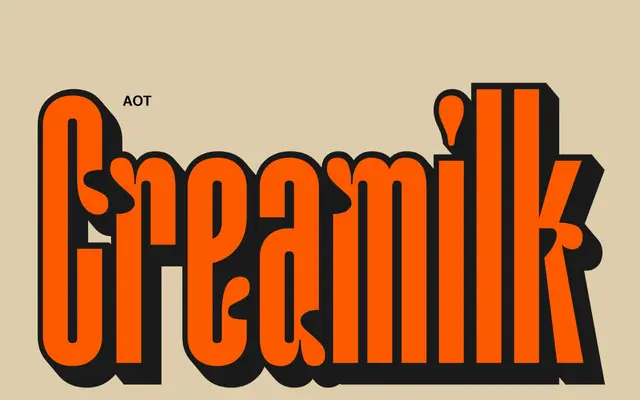
AOT Creamilk
A condensed display sans offered in eight style variants spanning rounded, slanted and extruded treatments for bold headline work.
Eight styles built around a single condensed uppercase-led structure, with variants that mix rounded corners, slanted angles and extruded depth to expand the tonal range from clean to expressive. The family suits poster design, logo work and visual branding where layering or stylistic contrast is required. Multilingual Latin coverage across a broad range of languages is included as standard.
A condensed display sans with decorative style variants including rounded, slanted and extruded cuts, clearly intended for headlines and visual branding rather than text setting.